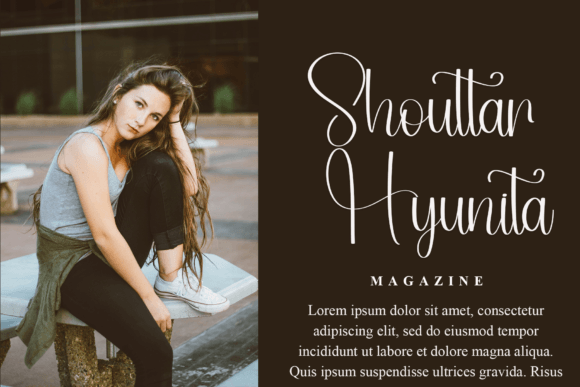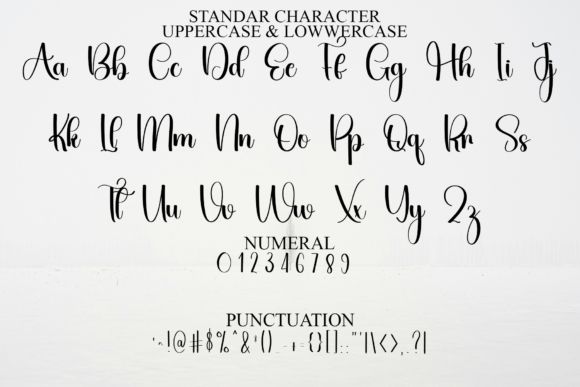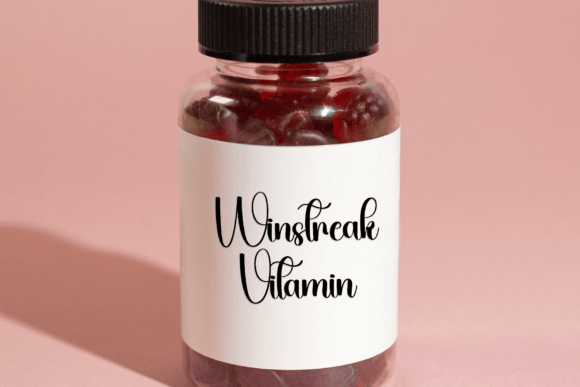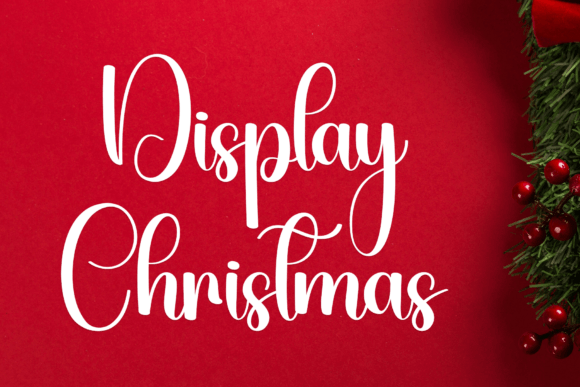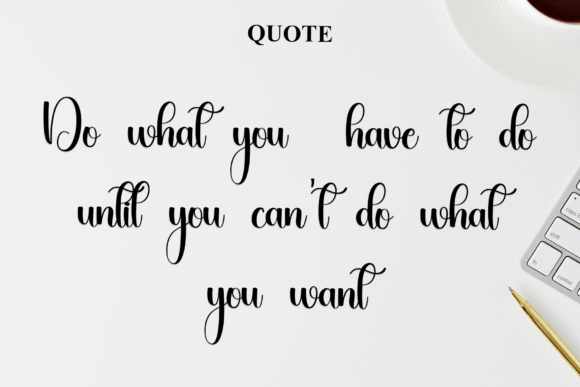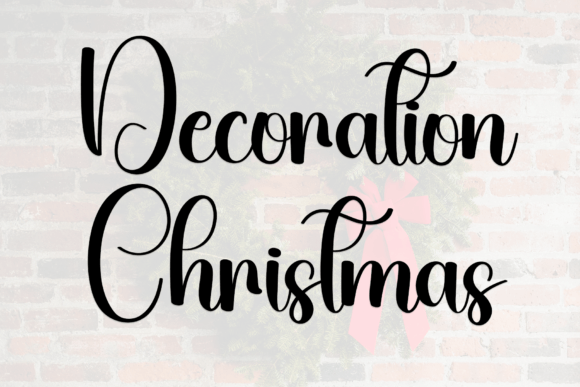
Introducing Advent Christmas Font: Elevate Your Designs with Elegance and Sophistication
Are you looking for a font that embodies the spirit of Christmas with a touch of modern elegance? Look no further than the Advent Christmas Font. This stunning font is inspired by timeless classic calligraphy, yet boasts a contemporary atmosphere that will make your designs stand out. In this article, we’ll delve into the features and benefits of Advent Christmas Font, and explore how it can elevate your projects to new heights.
A Font that Exudes Elegance and Sophistication
Advent Christmas Font is a beautifully crafted font that is both balanced and varied, making it perfect for a wide range of design applications. Its elegant and stylish appearance is sure to add a touch of sophistication to any project, from Christmas cards and invitations to branding and advertising materials. The font’s classic calligraphy inspiration ensures that it remains timeless, while its modern twist keeps it fresh and contemporary.
One of the standout features of Advent Christmas Font is its PUA (Private Use Area) encoding. This means that you can access all of the font’s amazing glyphs and ligatures with ease, giving you unparalleled creative control over your designs. With PUA encoding, you can effortlessly add intricate details and flourishes to your work, taking it to the next level.
Advent Christmas Font is a dream come true for designers and crafters looking to add a touch of elegance and sophistication to their work. Whether you’re creating:
- Christmas cards and invitations
- Branding and advertising materials
- Digital and print crafts
This font is sure to become a go-to in your design arsenal. Its versatility and flexibility make it perfect for a wide range of applications, from commercial projects to personal creations.
Key Features of Advent Christmas Font
- Elegant and stylish design: Inspired by timeless classic calligraphy, with a modern twist
- PUA encoded: Easy access to all glyphs and ligatures
- Balanced and varied: Perfect for a wide range of design applications
- Contemporary atmosphere: Keeps your designs fresh and modern
- Impeccable form: Ensures that your designs look polished and professional
Tips for Using Advent Christmas Font
To get the most out of Advent Christmas Font, here are a few tips:
- Experiment with different sizes and colors: Find the perfect combination to make your designs pop
- Use it in combination with other fonts: Create unique and interesting visual hierarchies
- Take advantage of glyphs and ligatures: Add intricate details and flourishes to your designs
Advent Christmas Font is a truly exceptional font that is sure to become a favorite among designers and crafters. Its elegant and stylish design, combined with its PUA encoding and versatility, make it the perfect choice for a wide range of design applications. Whether you’re looking to create stunning Christmas cards, elegant branding materials, or beautiful digital crafts, Advent Christmas Font is the perfect tool for the job. So why wait? Download Advent Christmas Font today and start elevating your designs to new heights!